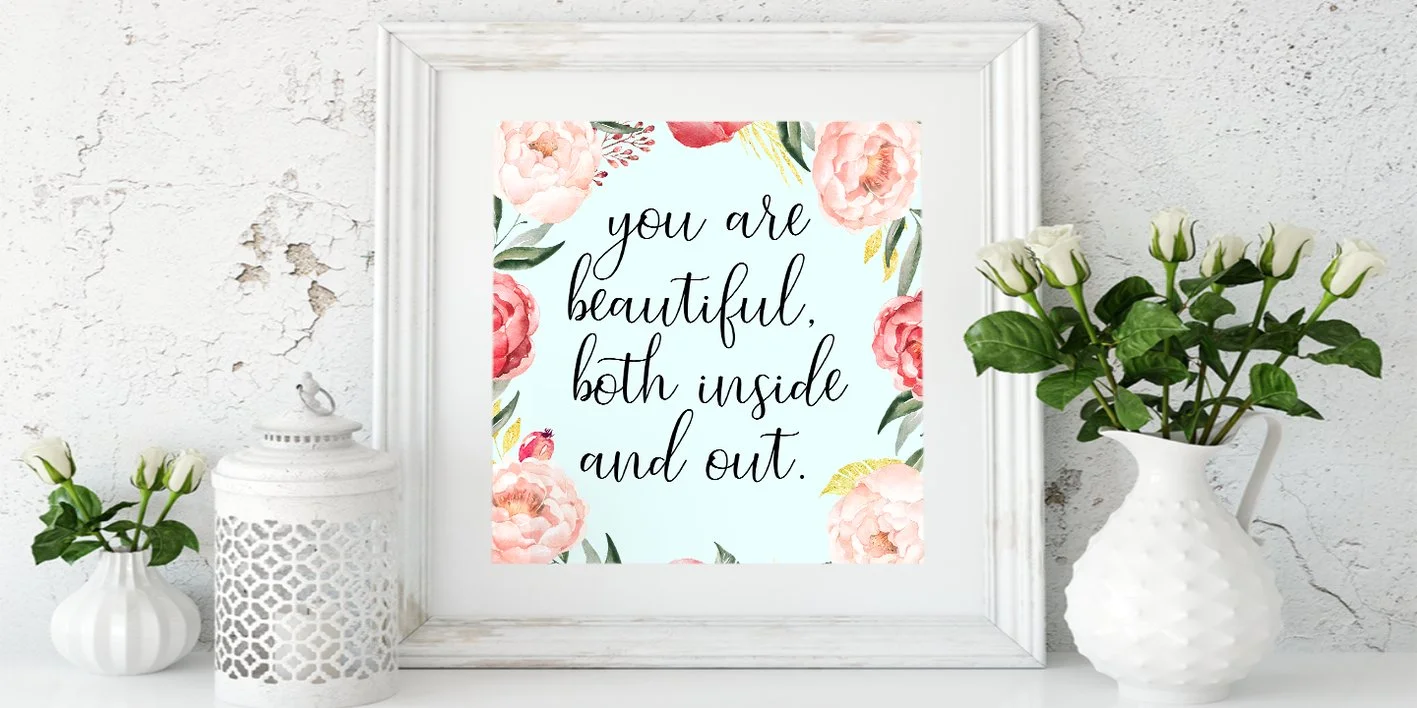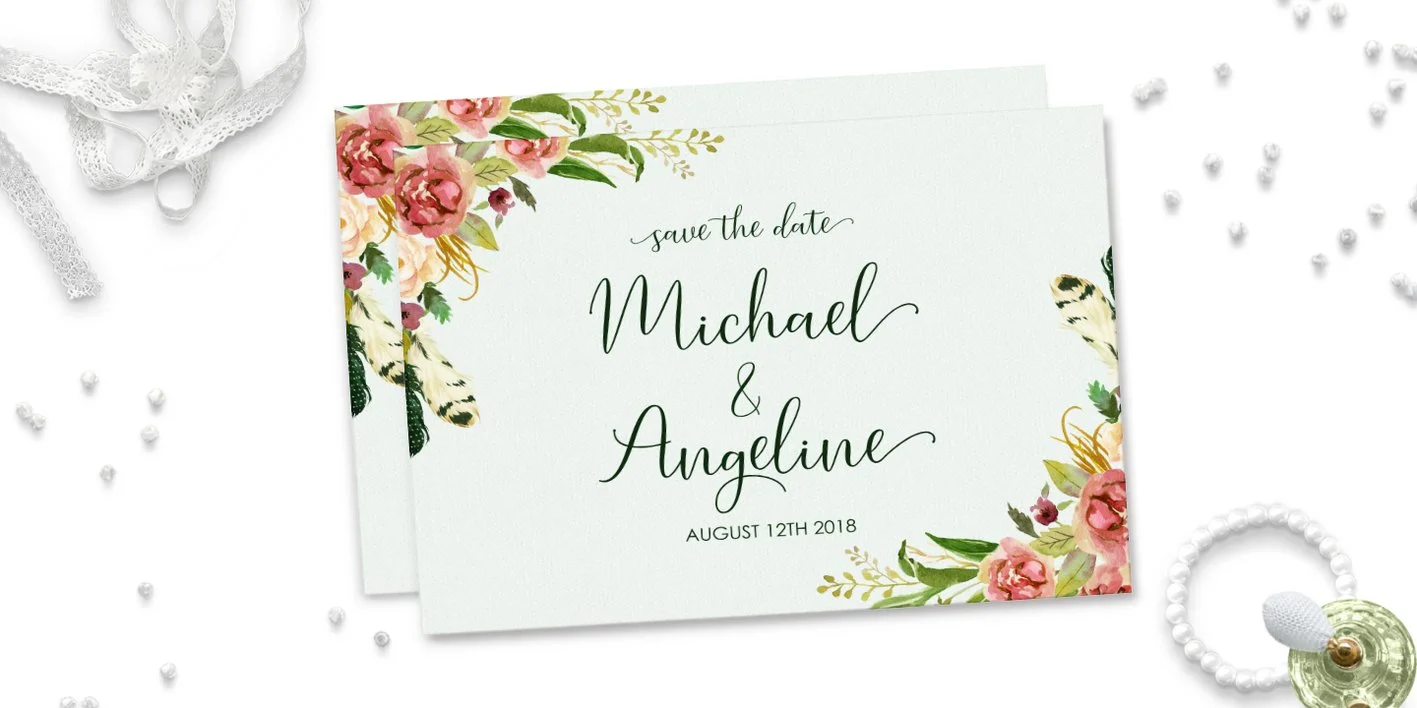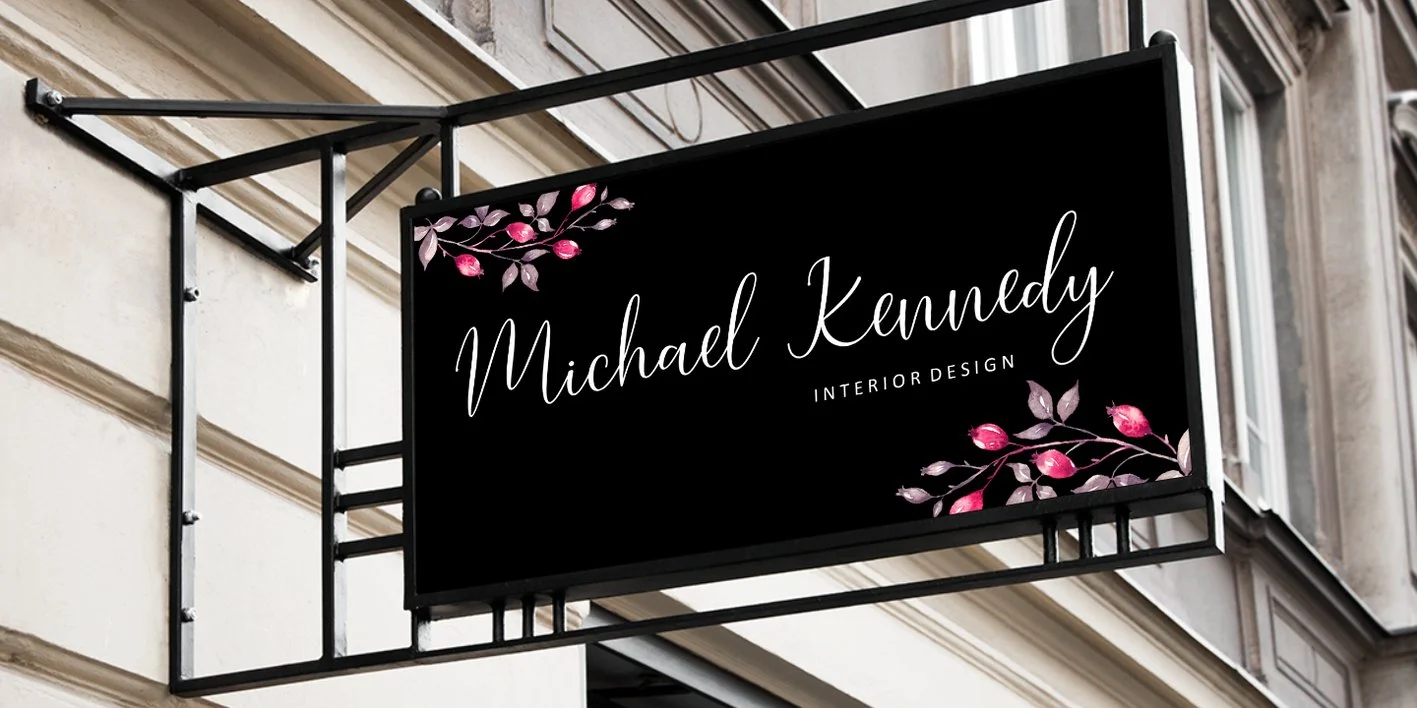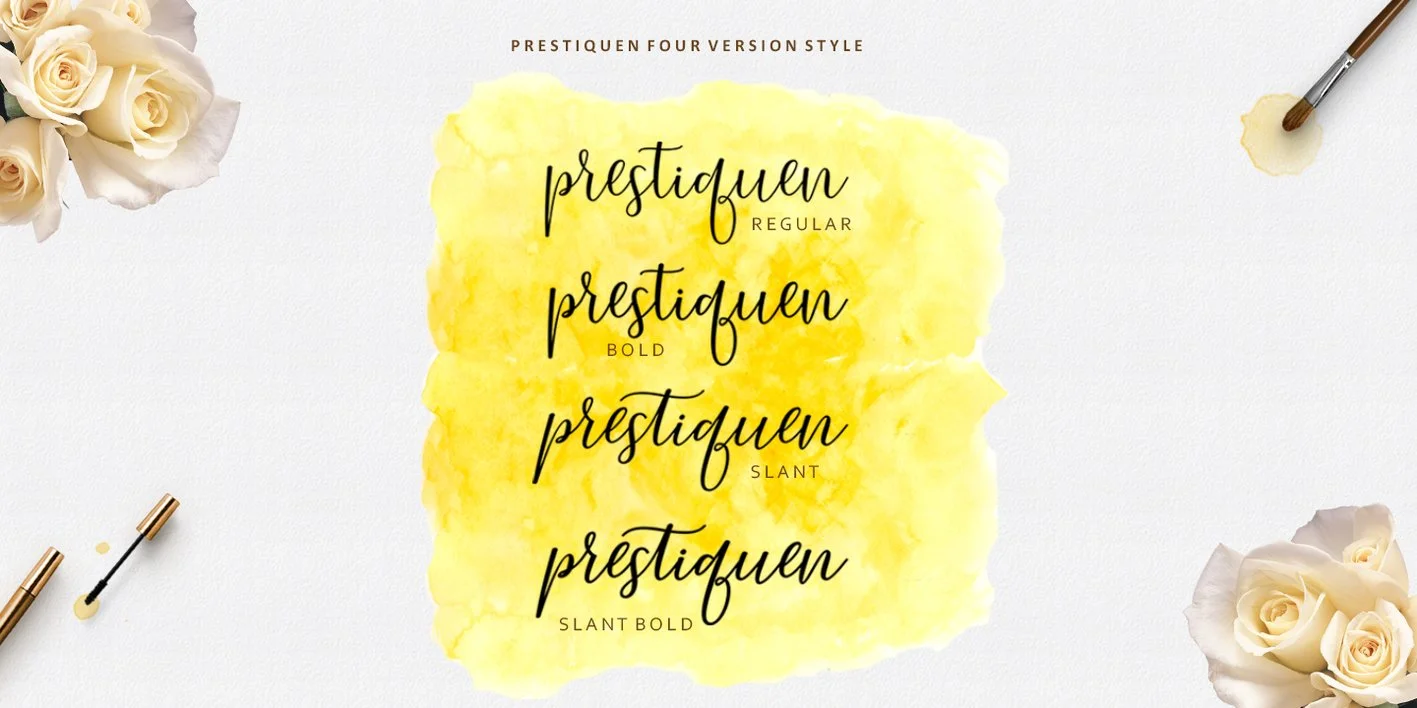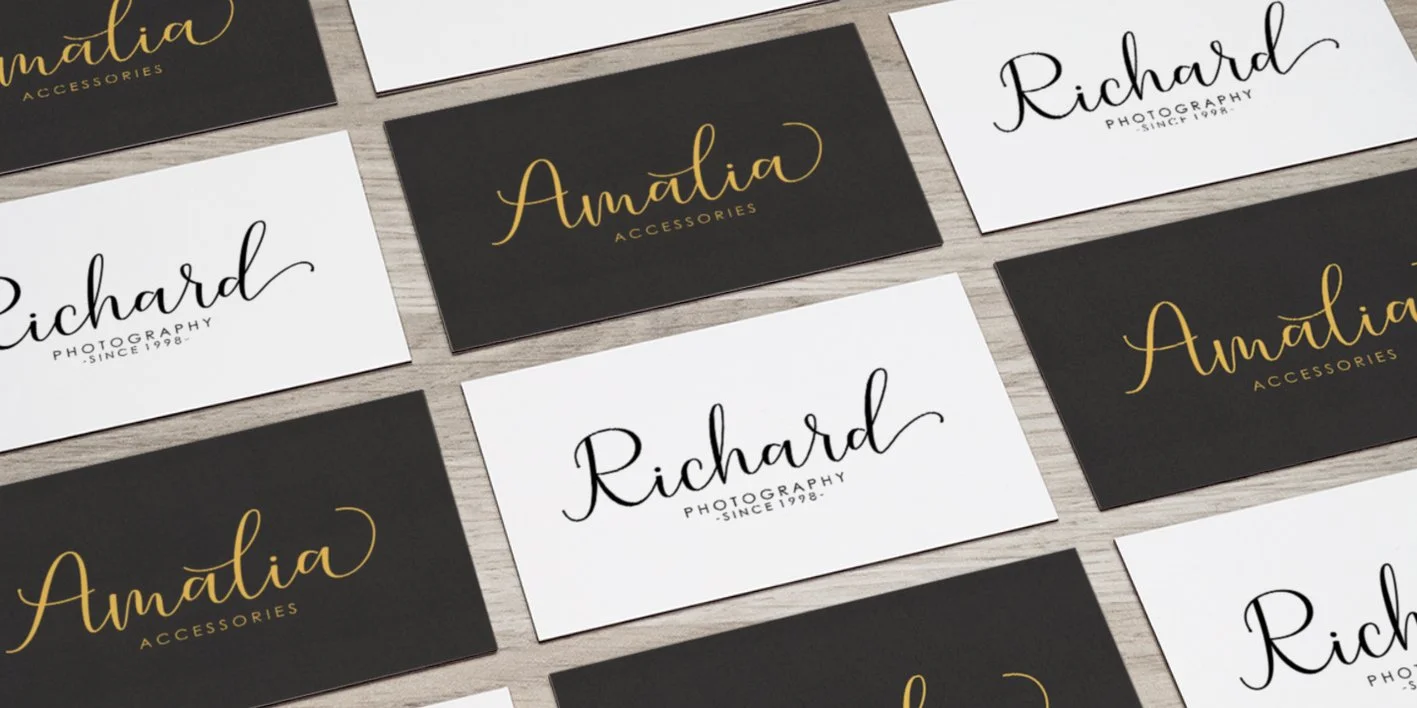
Prestiquen Script Font
Prestiquen Script is modern calligraphy design, including Regular, Bold, Slant and Slant Bold. This font is casual and pretty with swashes and can used for various purposes such as logos, product packaging, wedding invitations, branding, headlines, signage, labels, signature, book covers, posters, quotes and more. Prestiquen Script features OpenType stylistic alternates, ligatures and International support for most Western Languages is included. To enable the OpenType Stylistic alternates, you need a program that supports OpenType features such as Adobe Illustrator CS, Adobe Indesign & CorelDraw X6-X7, Microsoft Word 2010 or later versions. How to access all alternative characters using Adobe Illustrator: https://www.youtube.com/watch?v=XzwjMkbB-wQ Prestiquen Script is coded with PUA Unicode, which allows full access to all the extra characters without having special designing software.